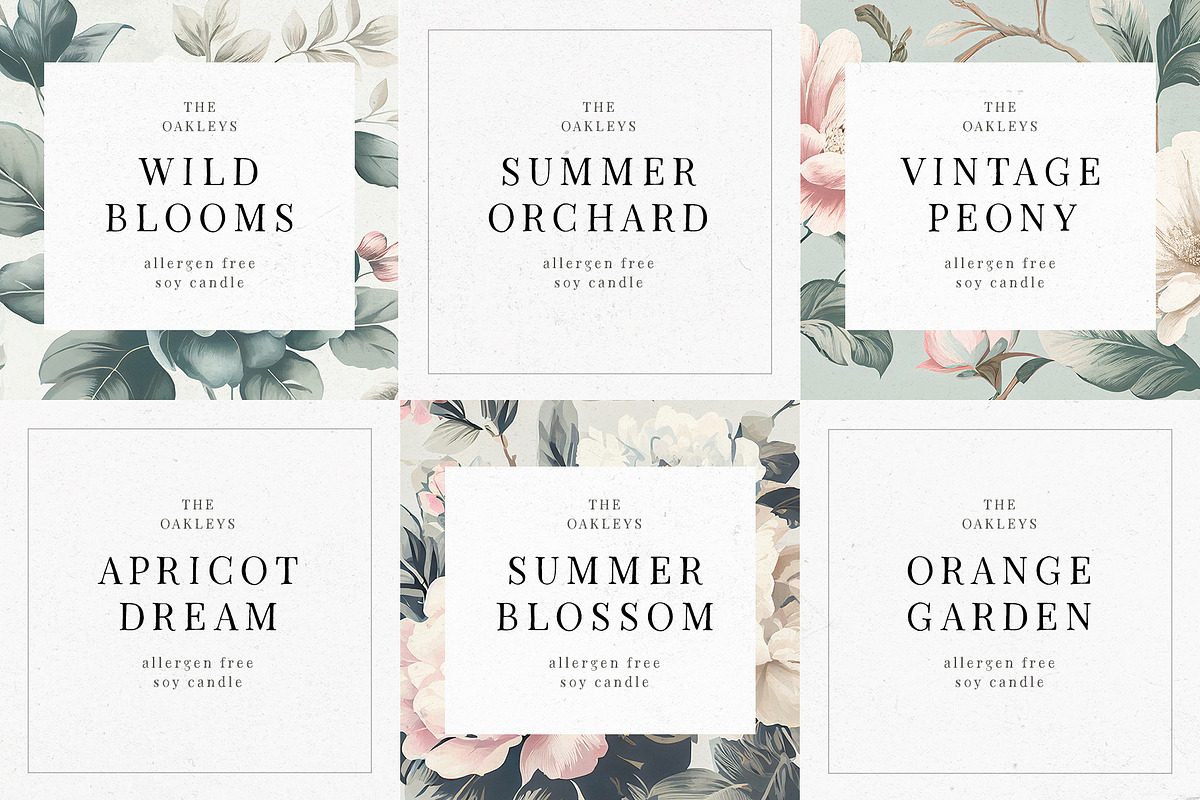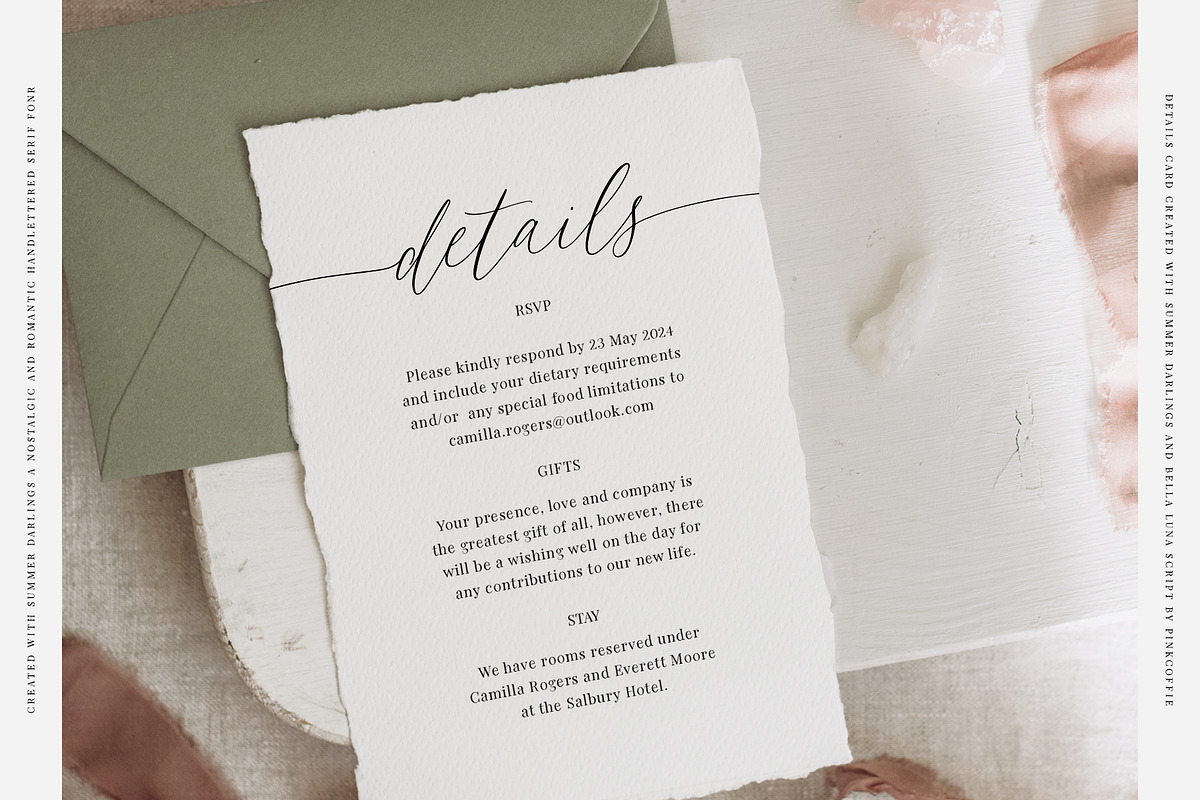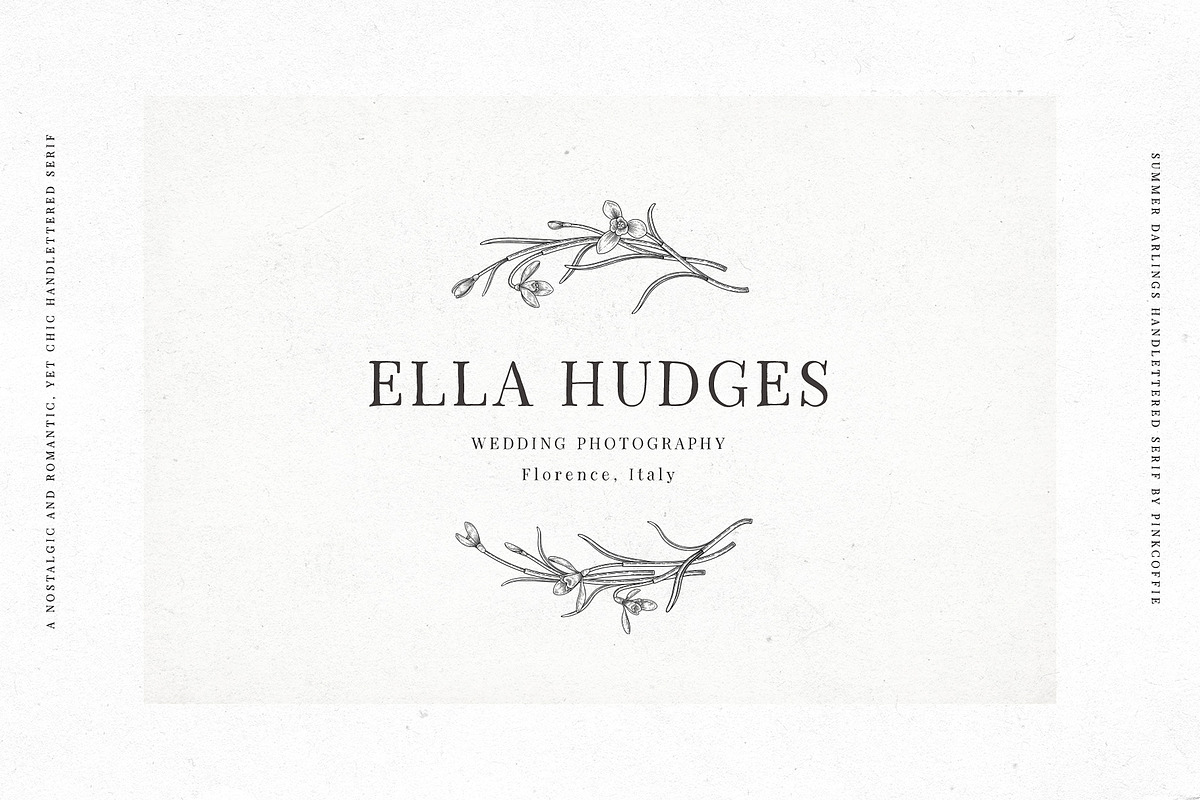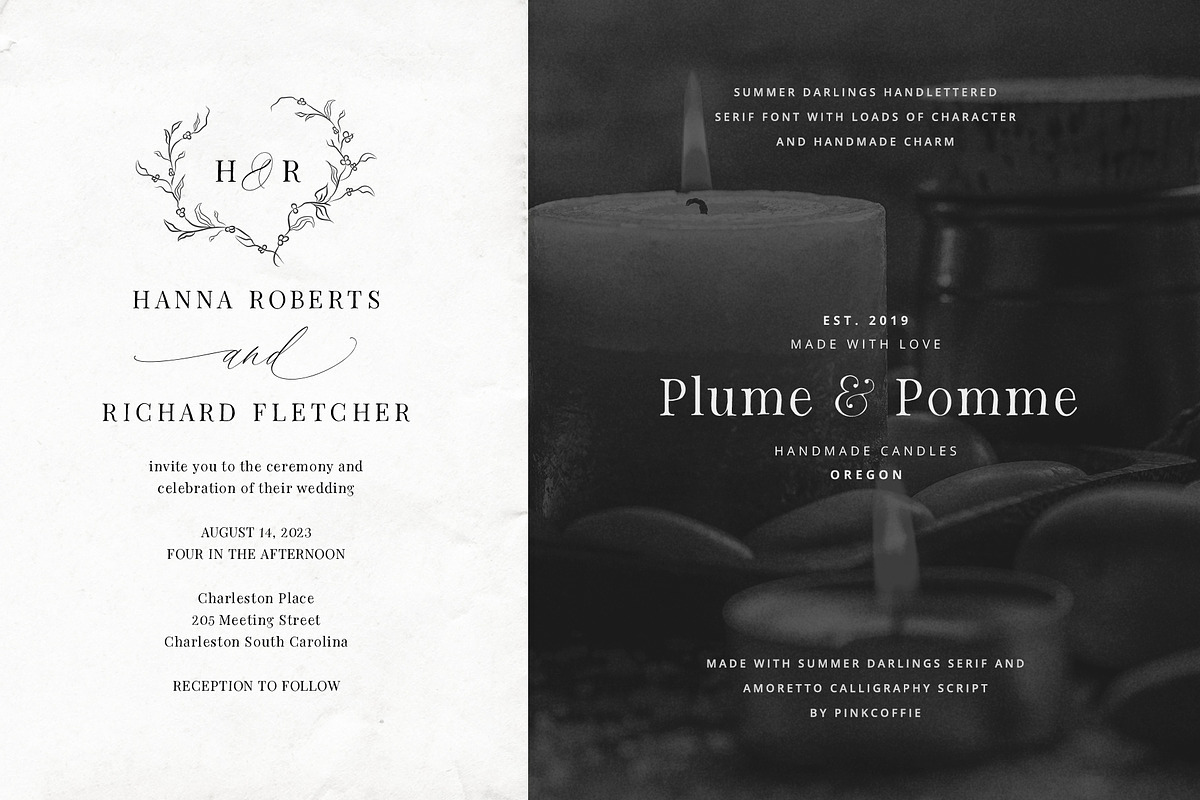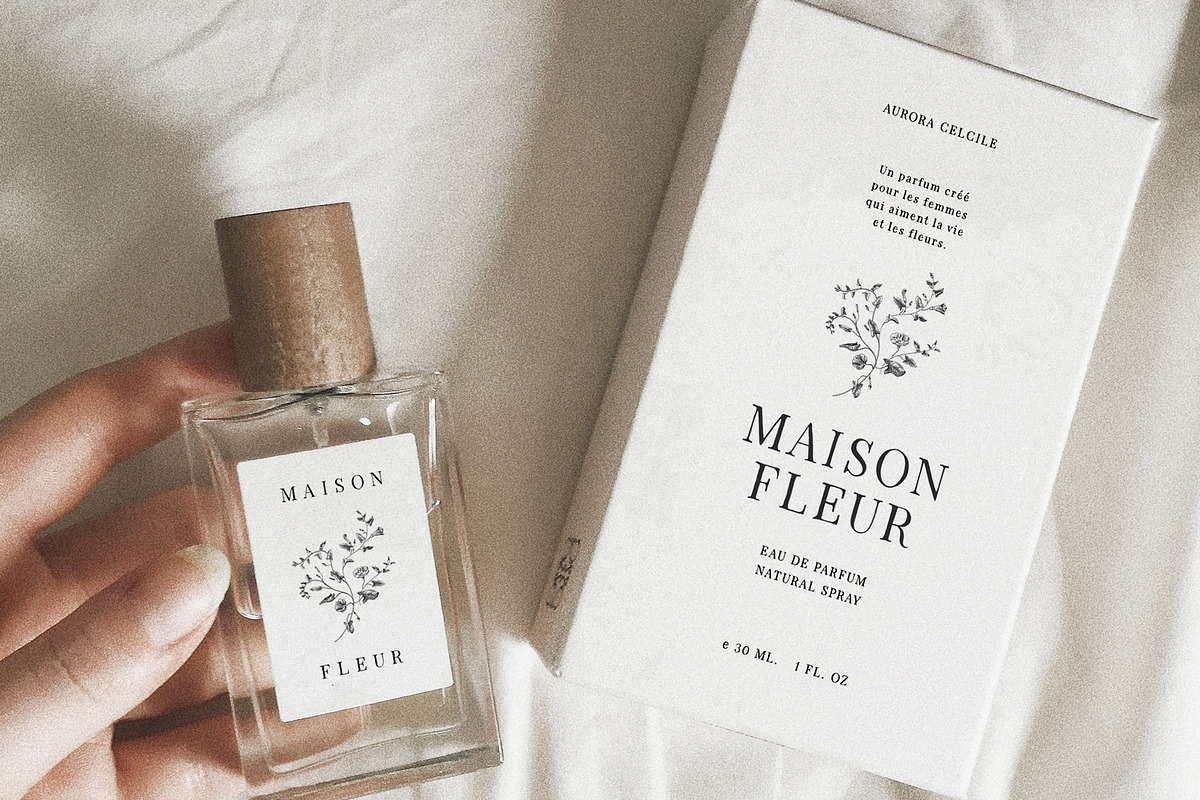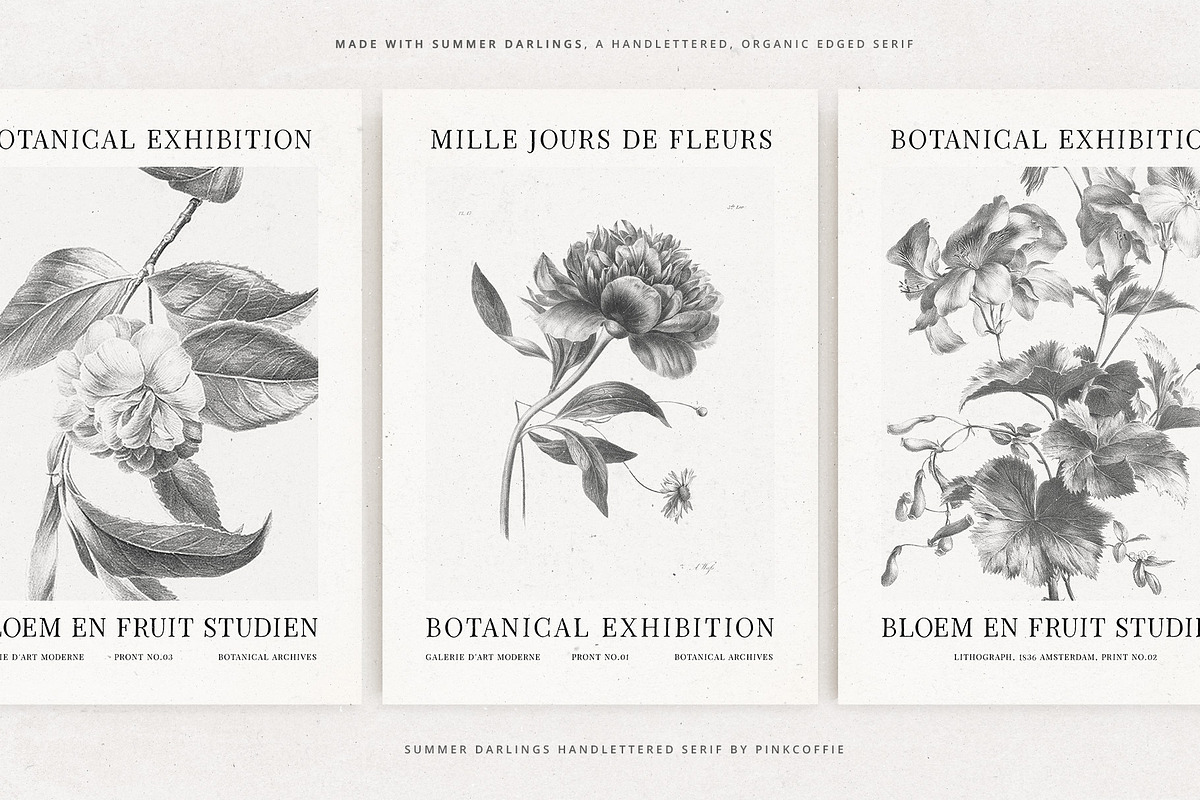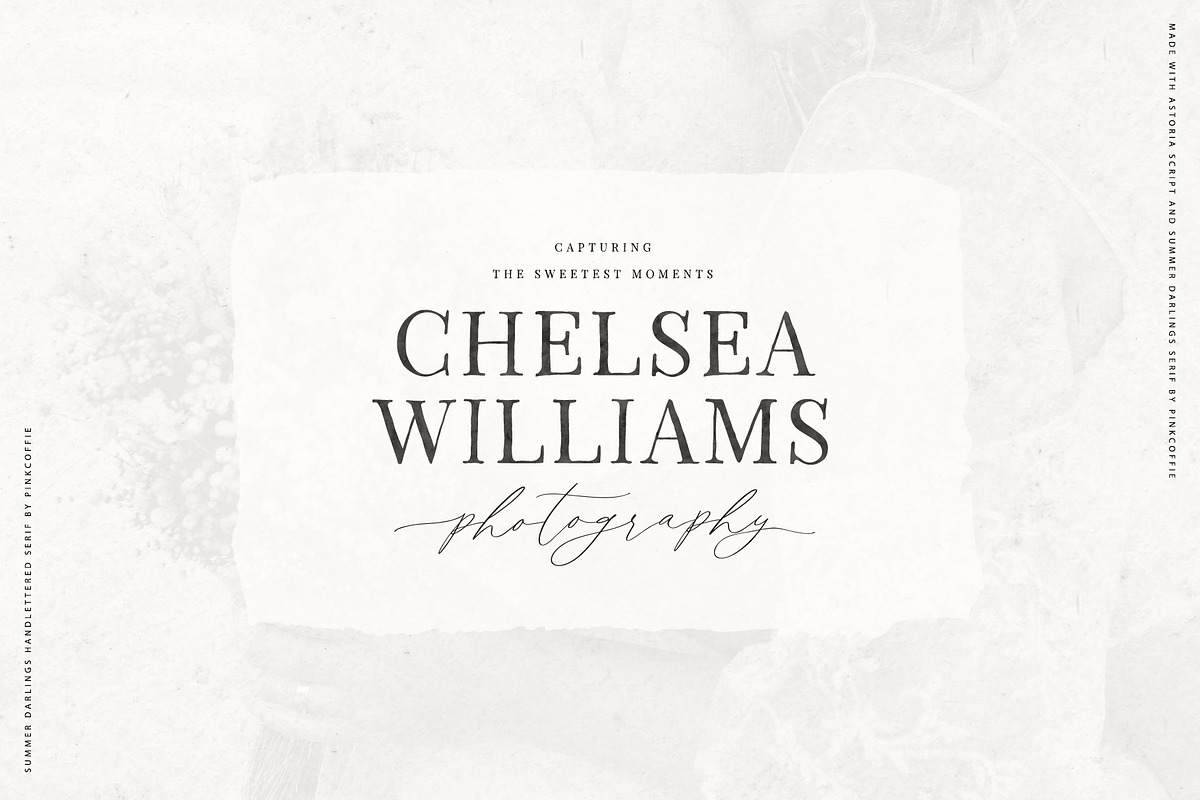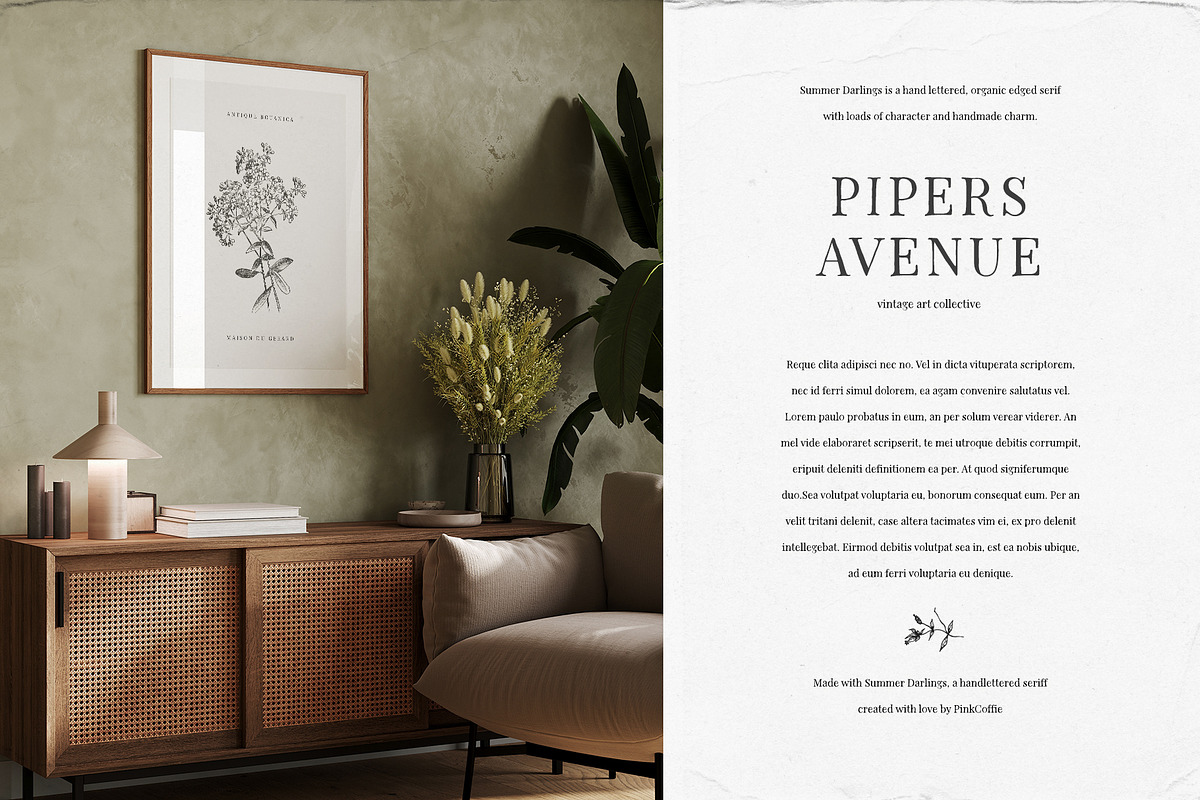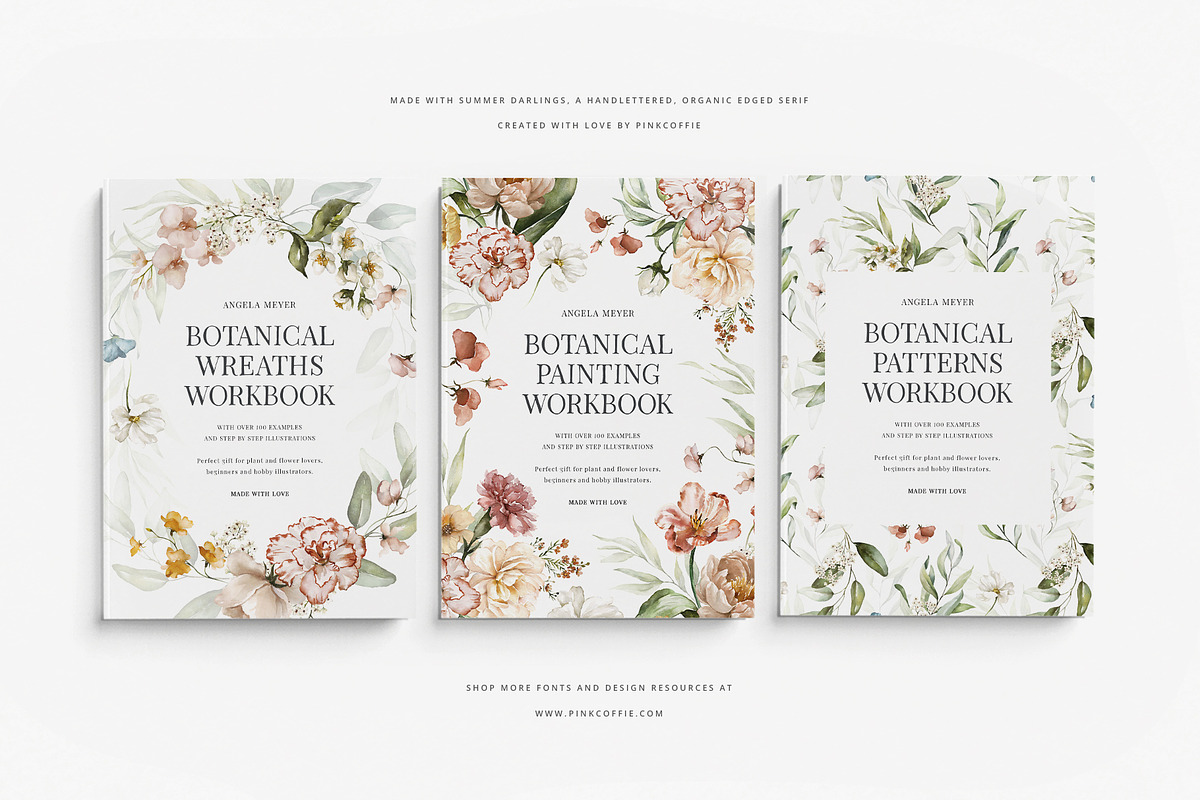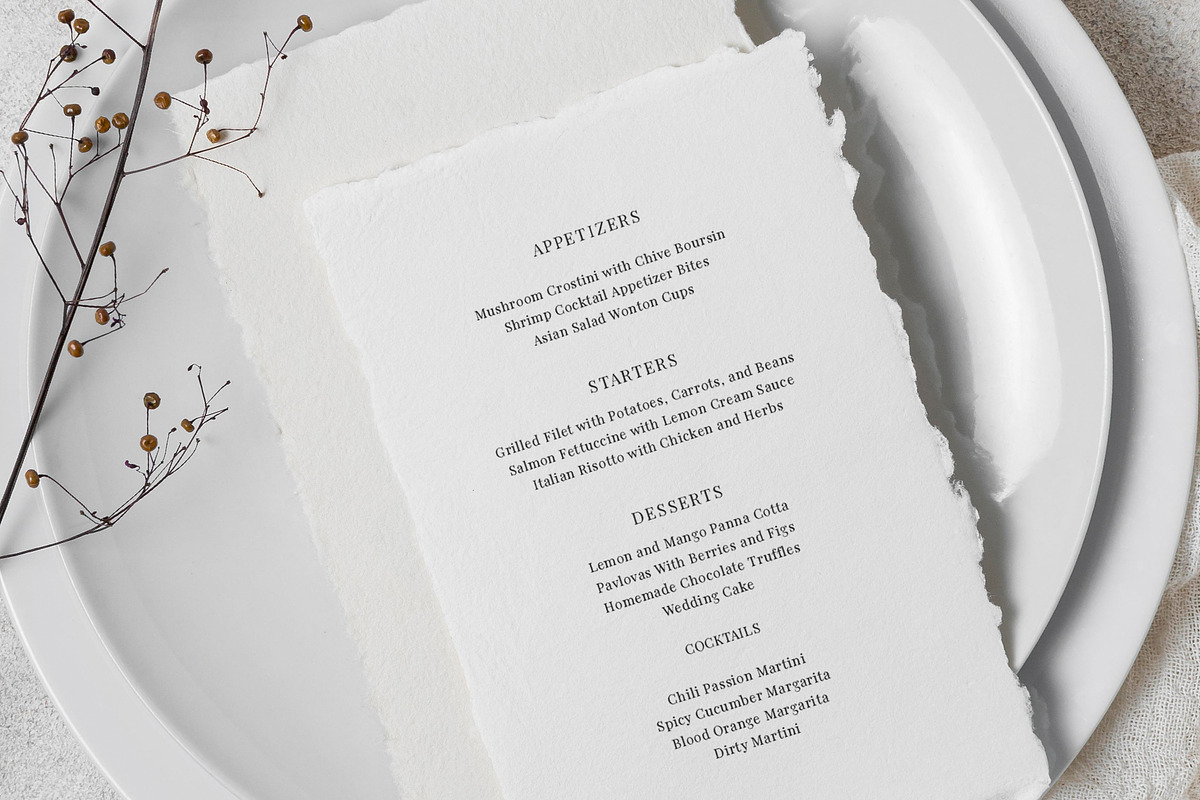
Summer Darlings | Handlettered Serif
Say hello to Summer Darlings, a nostalgic, romantic, and super versatile handlettered serif font with organic edges and loads of handmade charm!
This little hand-lettered gem is perfect for both print, and web, and can be used in a wide variety of projects including wedding stationery, greeting cards, menus, logos, branding, labels, packaging, art prints, apparel, websites, or any other projects that need a sprinkle of handmade.♥
MULTILINGUAL SUPPORT:
Summer Darlings includes multilingual support and the following multi-lingual characters: ÁĂÂÄÀĀĄÅÃÆĆČÇÐĎÉĚÊËĖÈĒĘÍÎÏÌĪĮĹĽŁŃŇÑÓÔÖÒŐŌØÕŔŘŚŠŞŤÚÛÜÙŰŪŲŮÝŹŽŻ áăâäàāąåãæćčçċďđéěêëėèēęğġíîïìīįĺľłńňñóöòőōøõŕřśšşßťúûüùűūųůẃŵẅẁýŷÿỳźžż